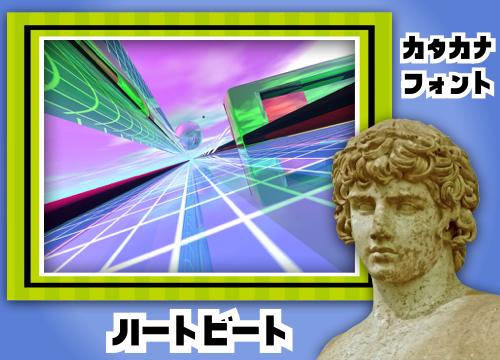
ハートビート
THIS IS MY SECOND ENTRY INTO THE FUTURECOMP.
WHAT COULD BE MORE FUTURISTIC THAN A BUNCH OF JAPANESE CHARACTERS?
THIS IS MY FIRST JAPANESE FONT, SO I’VE PROBABLY GOT IT ALL WRONG.
ハ by itself is Ha, but ファ is Fa, just to let you know…
Did I get something wrong?
@TCM The font name translates to HatBit
Other than that, Katakana looks good…
“Heartbeat”
Japanese person here. I'm liking your attempt at a Japanese design with the limitations of FontStruct!
Your letterforms seem to be decent for being made of Fontstruct tiles. The only criticism I have is ツ looking too much like シ. The short strokes should both start at the same vertical position as the long stroke.
I was doing a bit of research to make this font, and I can feel nothing but admiration for you, using two different syllabaries and a full character system plus any quoted English words all in one sentence! Meanwhile not many English speakers would dare stray away from the one alphabet they know.
I'm no expert on kana, but looks good to me! Nice use of the brick from the Connect set as the dakuten.